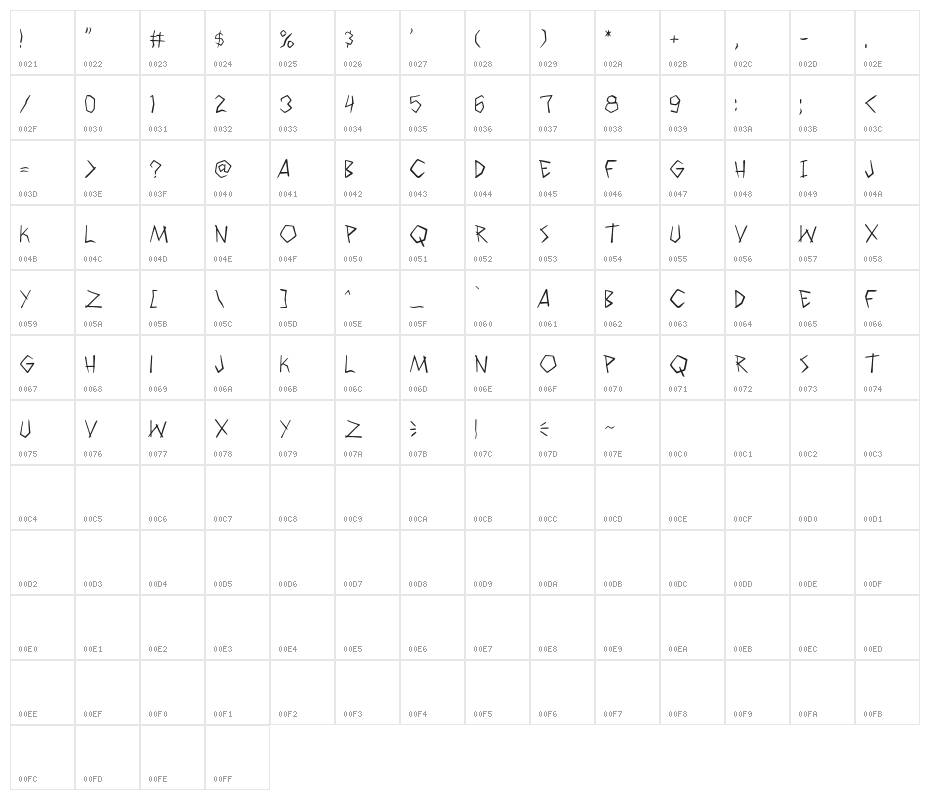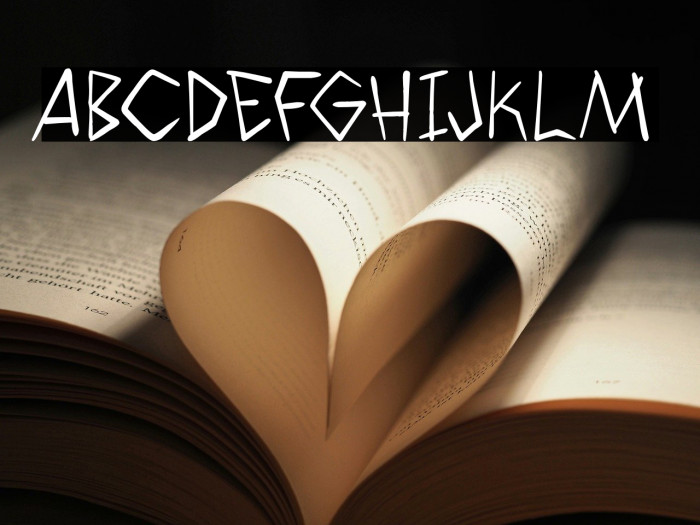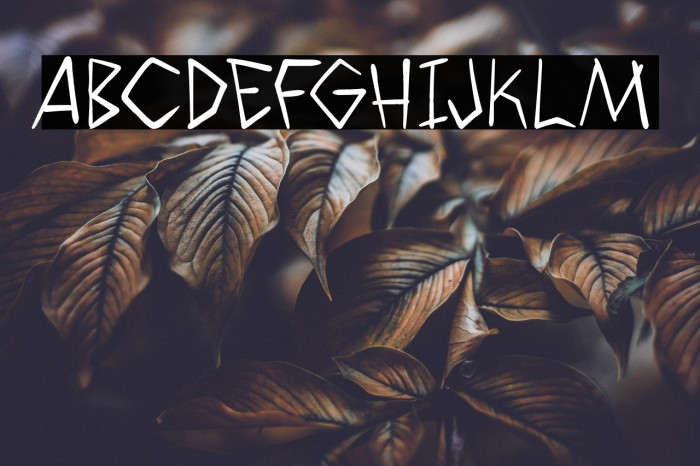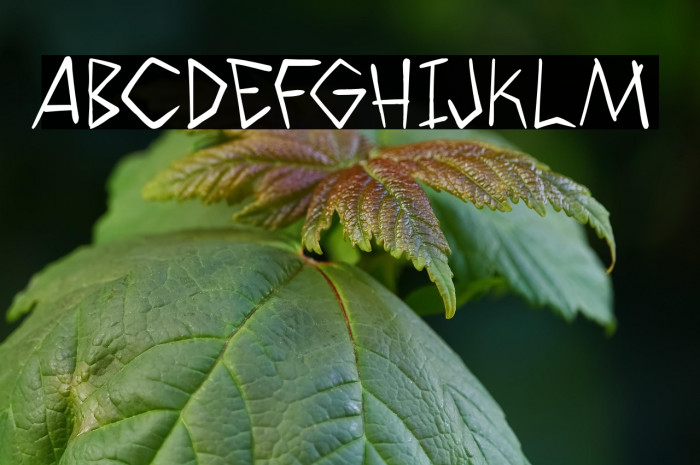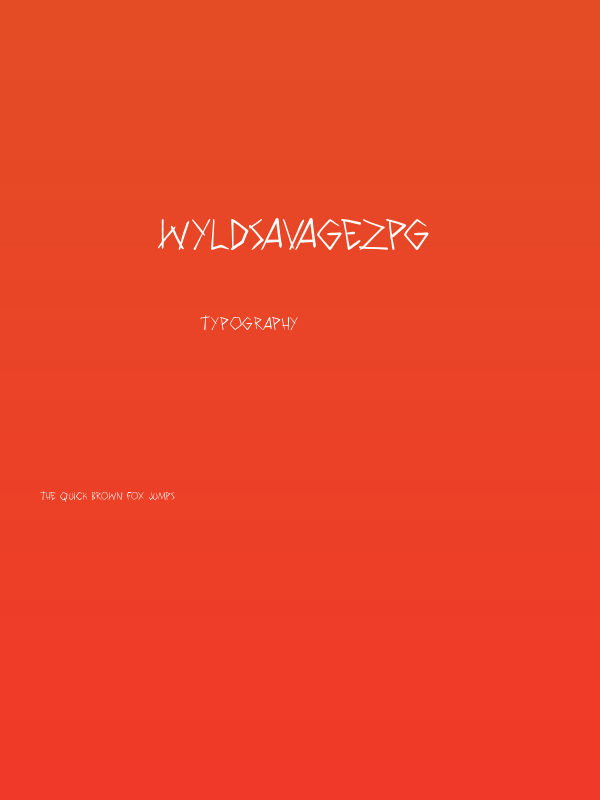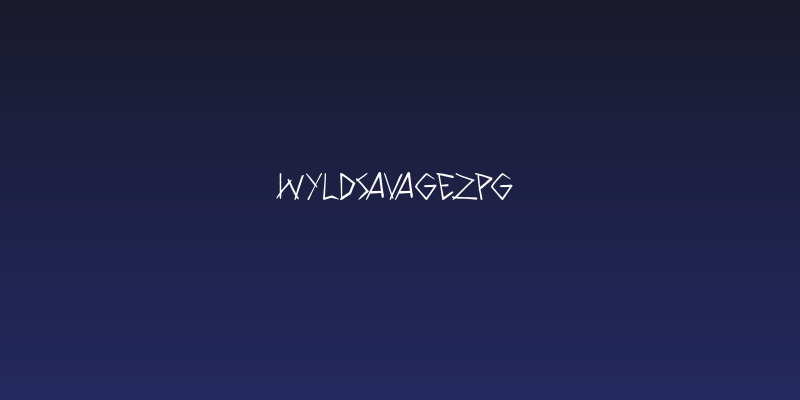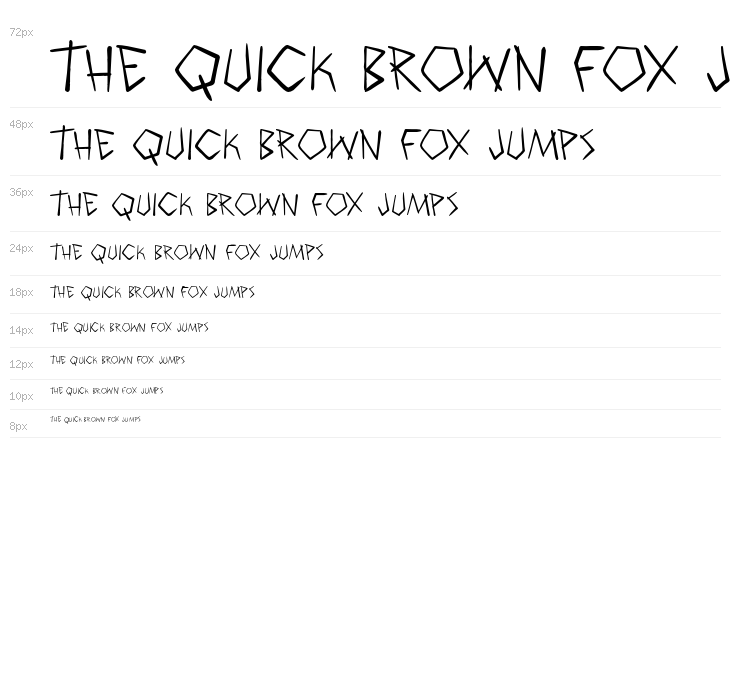
WyldSavagezPG Font
WyldSavagezPG Description
This font features a rugged and edgy design, characterized by its sharp, angular lines and irregular strokes. The letters have a hand-drawn appearance, giving them a raw and untamed aesthetic. The uppercase and lowercase characters maintain a consistent style, with a slightly uneven baseline that adds to the font's wild and rebellious feel. The numerals and special characters follow the same design principles, ensuring a cohesive look across all elements. This font's unique style makes it stand out, perfect for projects that require a bold and unconventional approach.
| Overall Style | Edgy, Raw, Rebellious |
| Proposed Projects | Ideal for album covers, posters, branding for extreme sports, or any project needing a rebellious touch. |